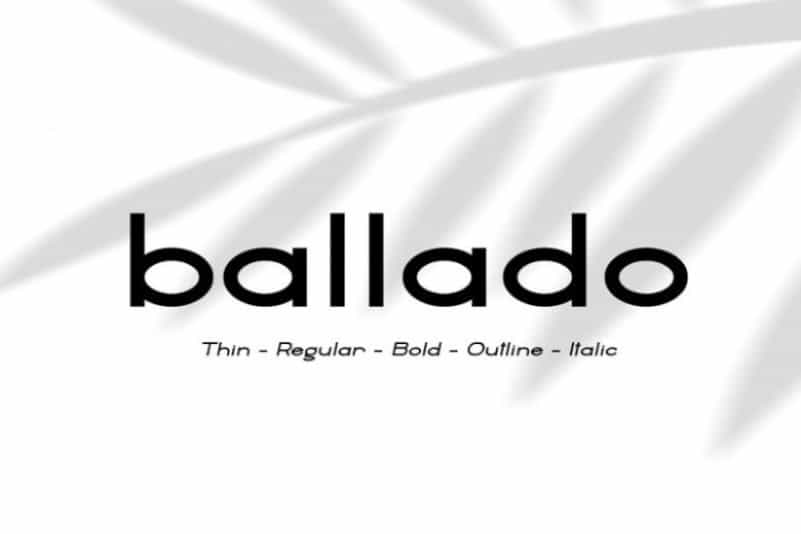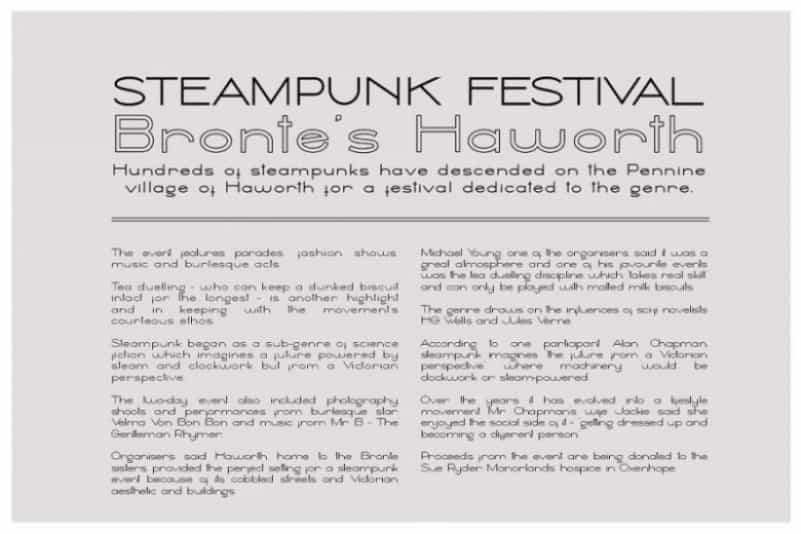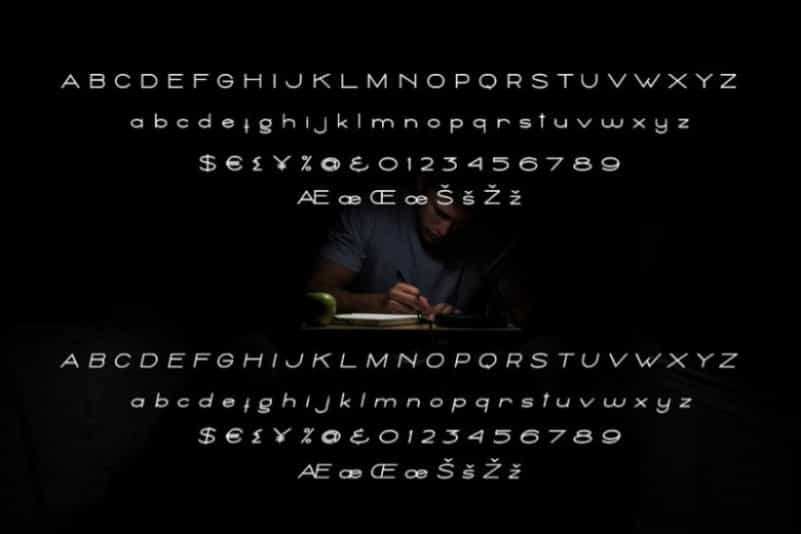
Introducing Ballado Font Family! This type of lettering is also good for a range of uses as the strong capitals and the smooth, open lowercase give it a nice look. This is due to the fact that the design is nearly monolinear, geometric, characteristic of classic design, but with rounded edges and bright shapes.